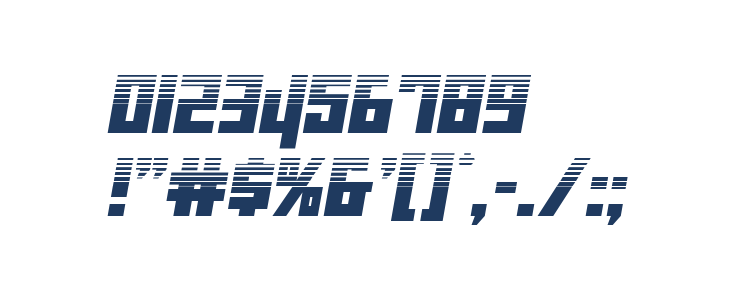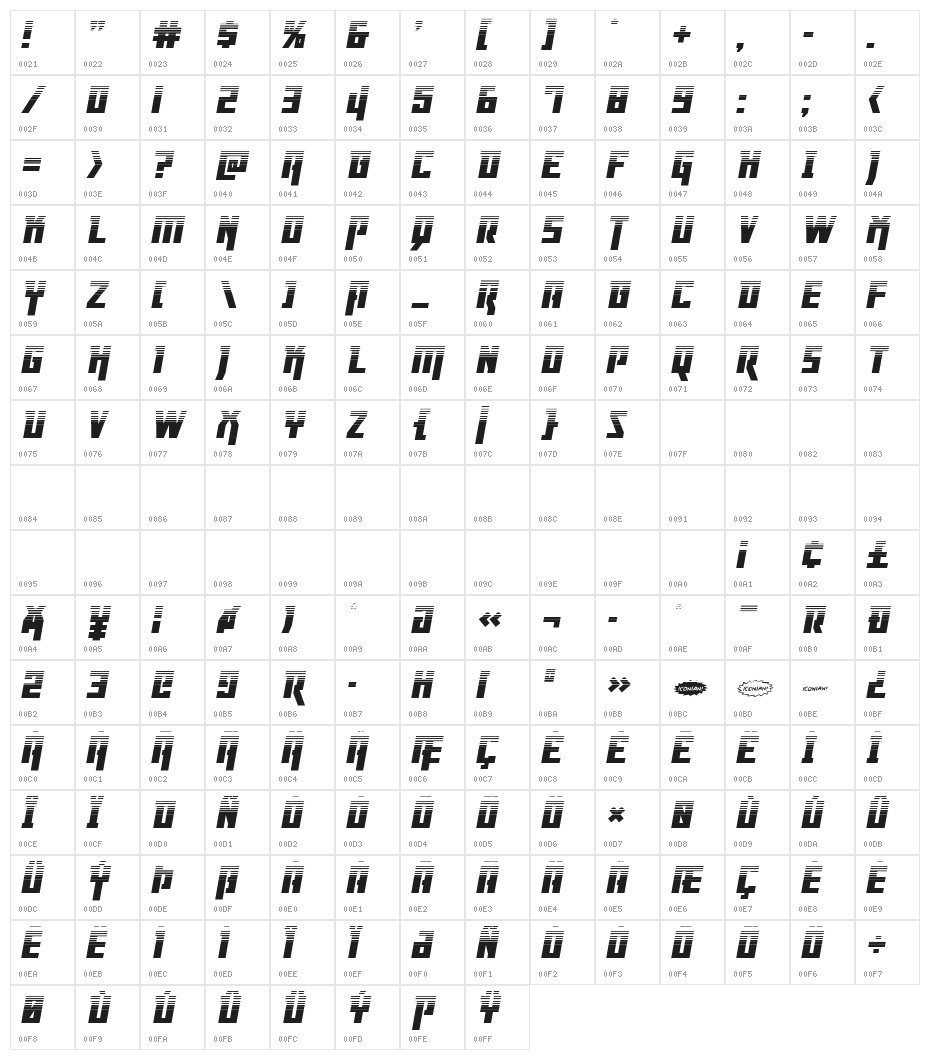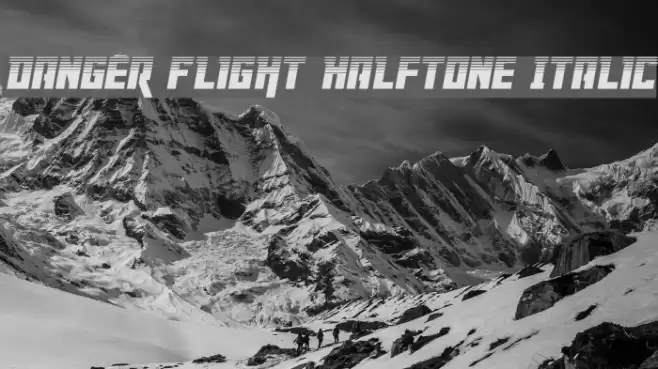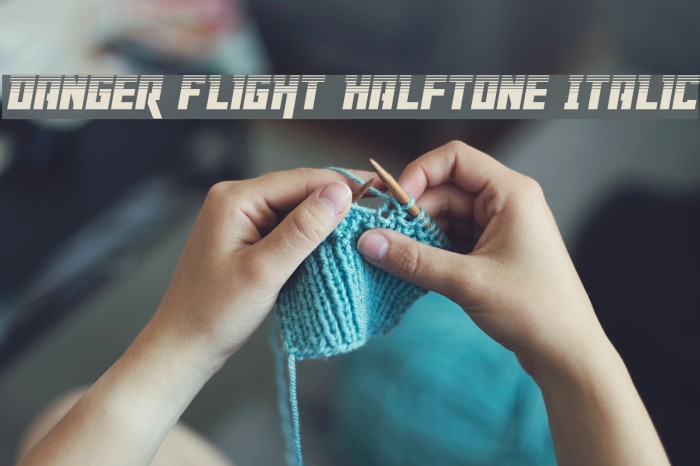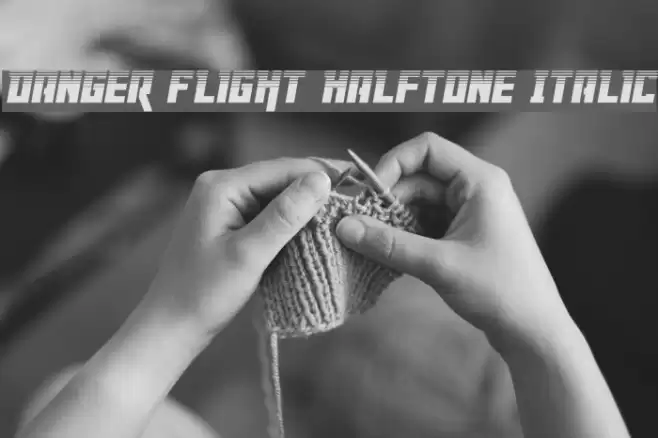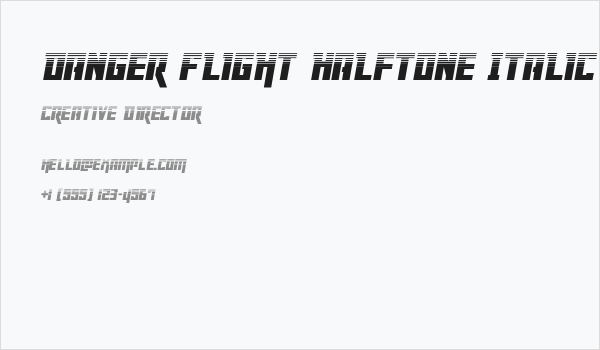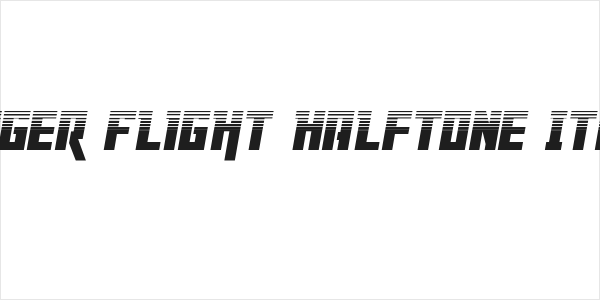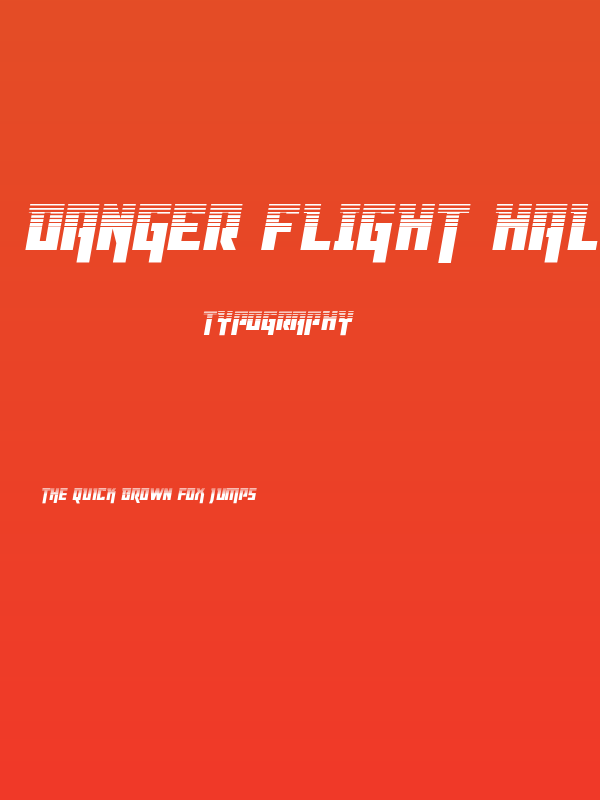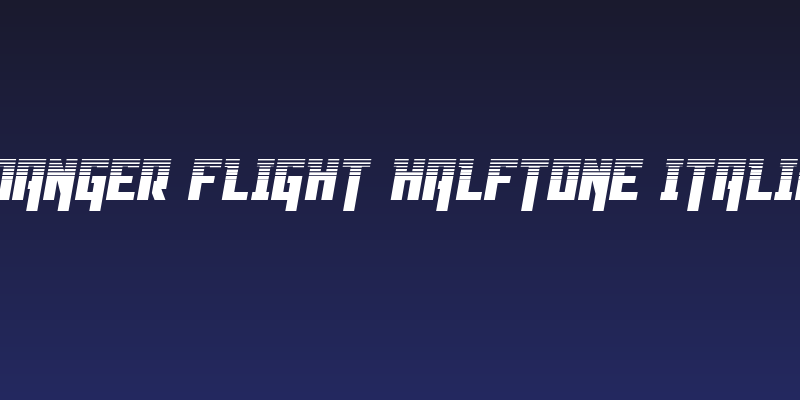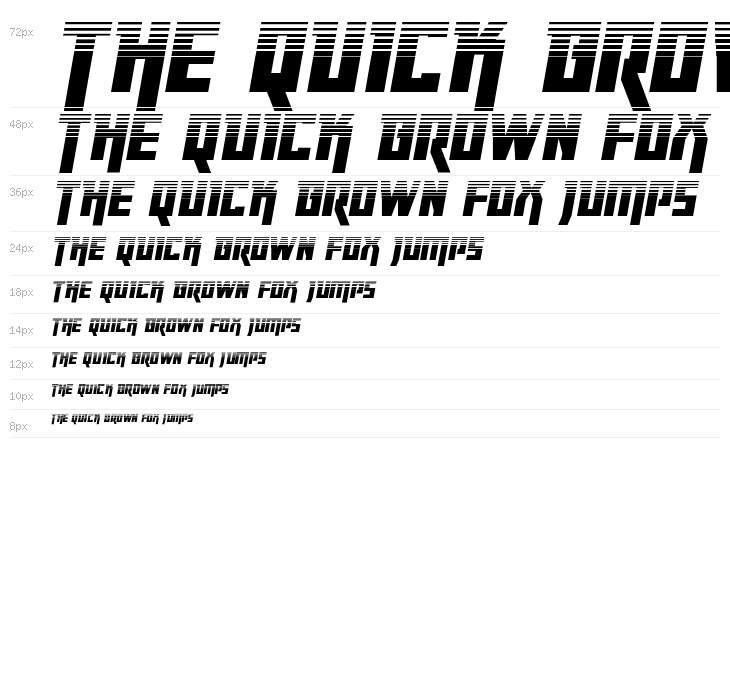
Danger Flight Halftone Italic Font
Danger Flight Halftone Italic Description
This font features a bold, futuristic design with a distinct halftone effect that gives it a dynamic and energetic appearance. The characters are italicized, adding a sense of motion and speed. The uppercase and lowercase letters maintain a consistent style, with sharp angles and a geometric structure. The numbers and special characters follow the same aesthetic, ensuring uniformity across all glyphs. The halftone lines create a sense of depth and texture, making the font ideal for attention-grabbing headlines or branding that requires a modern and edgy look.